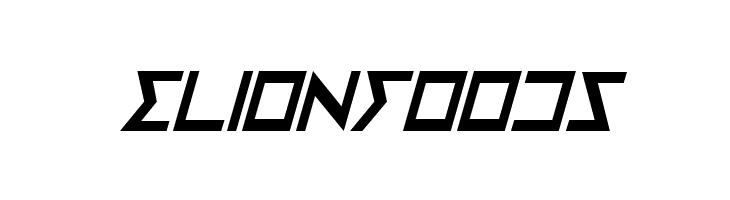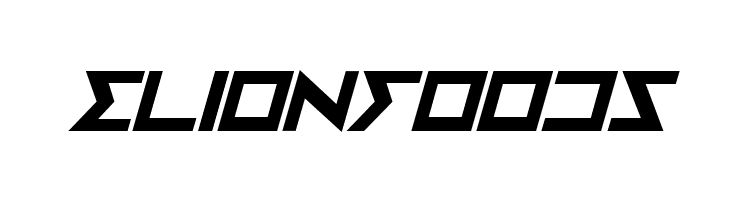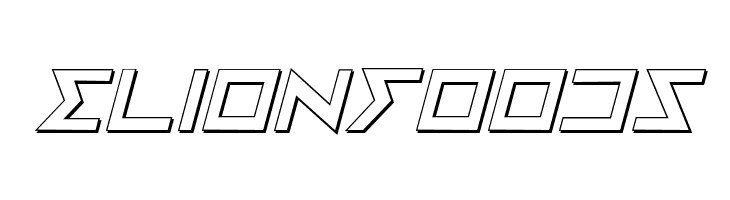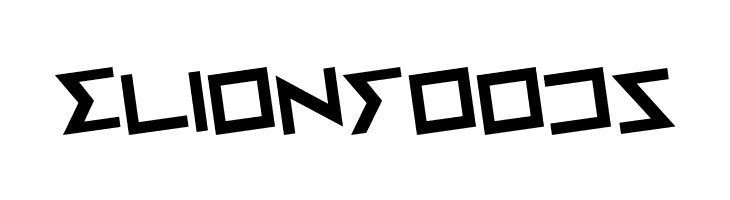
Morning Wasabi Font
A bold, geometric, and futuristic font with condensed and italicized characters.
A bold, italicized font with a futuristic, angular design and decorative elements.
A bold, futuristic font with sharp angles and geometric shapes, featuring an italic style.
A bold, geometric 3D italic font with angular lines and a futuristic style.
A bold, angular font with a futuristic and geometric style.
A bold, angular font with a futuristic and edgy design.
A bold, angular, and futuristic italic font with geometric elements.